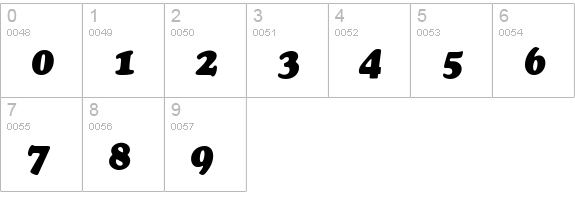
AG_Cooper Italic Font Details
AG_Cooper Italic is a distinctive, italic variant in the AG_Cooper typeface family \xE2\x80\x94 well suited to design and typography projects.